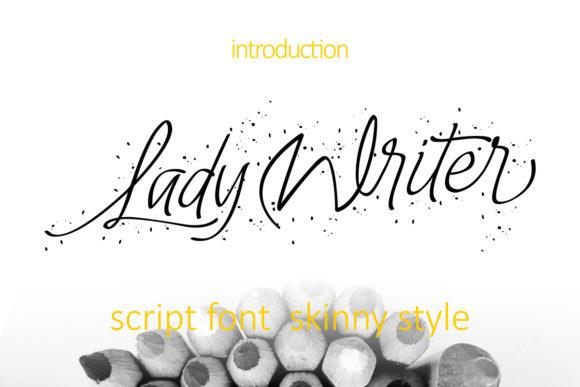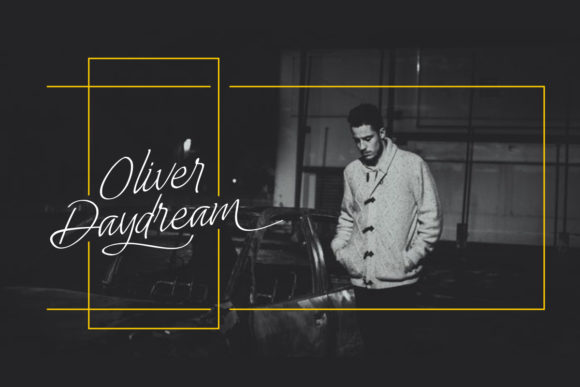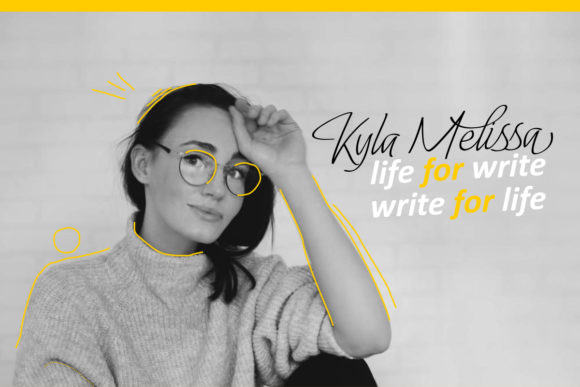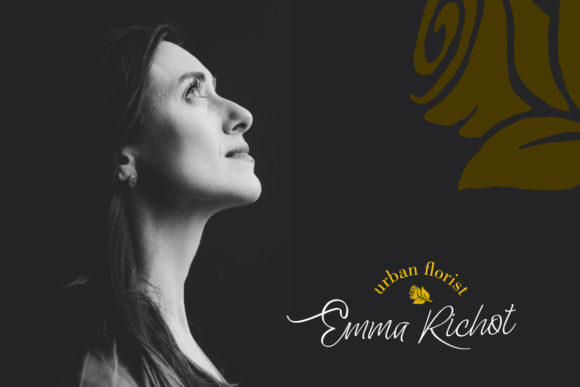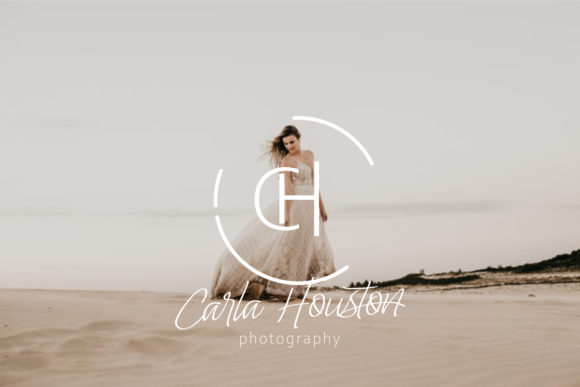
HomeScript FontsLady Writer Font Script Fonts Lady Writer Font FacebookXPinterestWhatsApp Lady Writer Font Poster 2 Lady Writer Font Poster 3 Lady Writer Font Poster 4 Lady Writer Font Poster 5 About Lady Writer Font Lady Writer is a beautiful script font that will add a touch of authenticity to any design idea! DOWNLOAD ON CREATIVE FABRICAThis font is sold and delivered by Creative Fabrica. Font Canyon may earn a commission if you buy through this link. People also explored Balinice Font Punchy Font Snowman Font Friday Vibes Font Steel Blue Bella Canvas 3005 Mockup Astronueu Regular Font Earthly Wisdom Font Hardball Font Alfonte Font 330 0 TagsLady Writer Font Previous articleVilona FontNext articleSumiaty Font LEAVE A REPLY Cancel reply Comment: Please enter your comment! Name:* Please enter your name here Email:* You have entered an incorrect email address! Please enter your email address here Website: Save my name, email, and website in this browser for the next time I comment. Personal Use Free Astercla Personal Use Free Read more about this font Over the Top Personal Use Free Read more about this font Splatter Splash Personal Use Free Read more about this font Rhetorical Personal Use Free Read more about this font BLOG Using Fonts in Digital Marketing: Tips to Strengthen Your Brand Identity In the realm of digital marketing, every visual element plays a crucial role in shaping a brand's identity, and fonts are no exception. The... Where to Buy American Fonts Online in 2024 Fonts That Capture the Spirit of New York City To increase your work productivity, choose the most readable fonts.